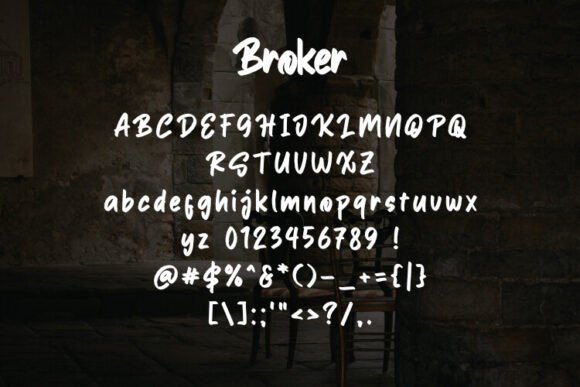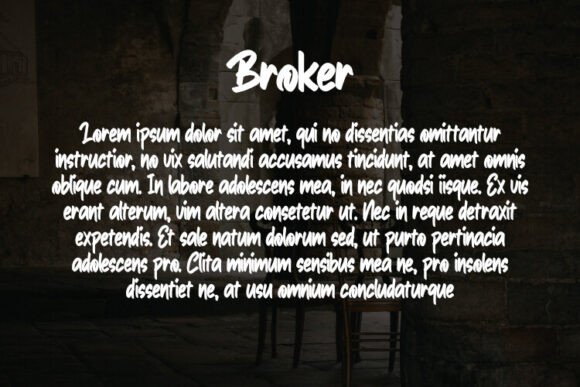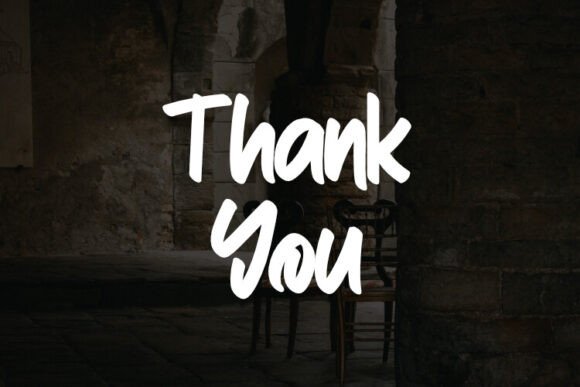
Broker Font
Introducing the “Broker” font, a versatile and stylish typeface that breathes life into clothing, t-shirt, and various product designs. Its adaptability fits any design or software seamlessly, providing a sophisticated touch to your creative project. His digital inclusion comes in the form of an otf file. “Broker” is not just a font, but an extension of your creative spirit.